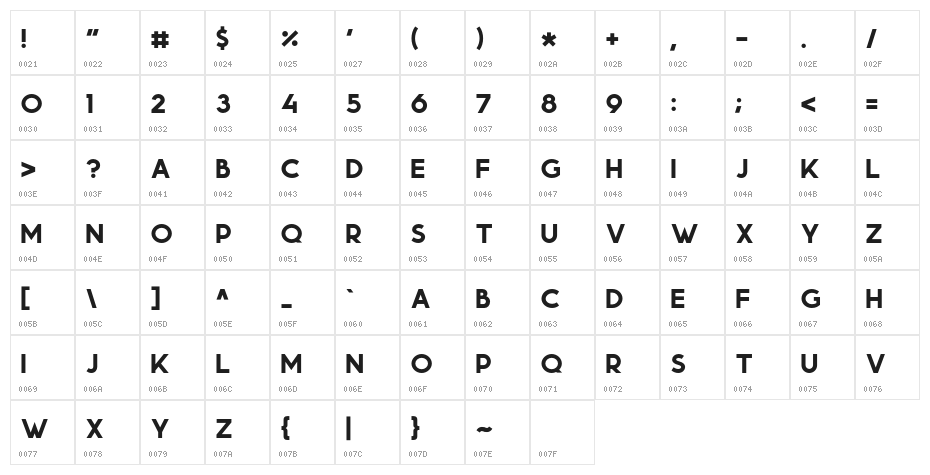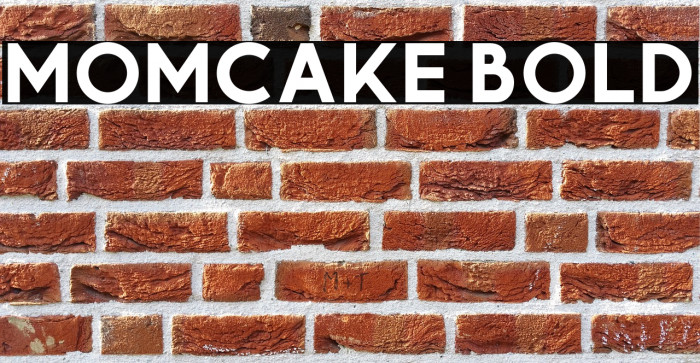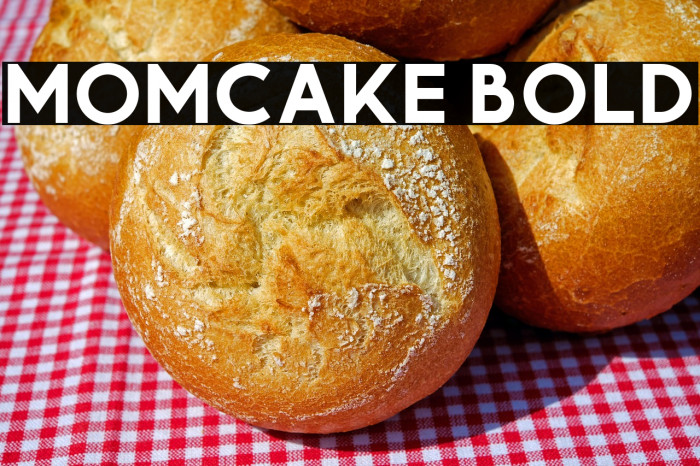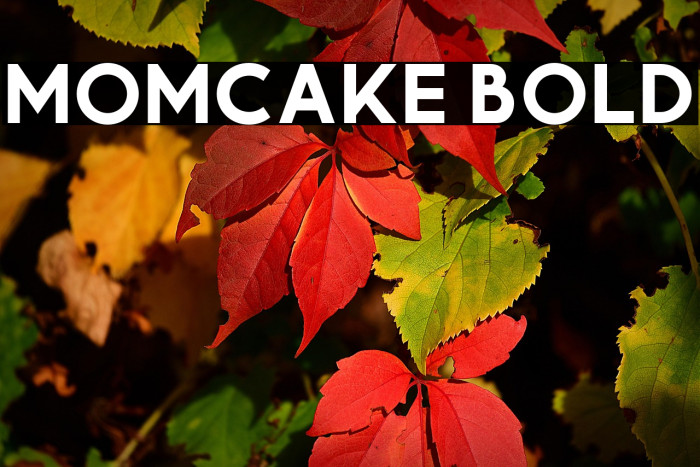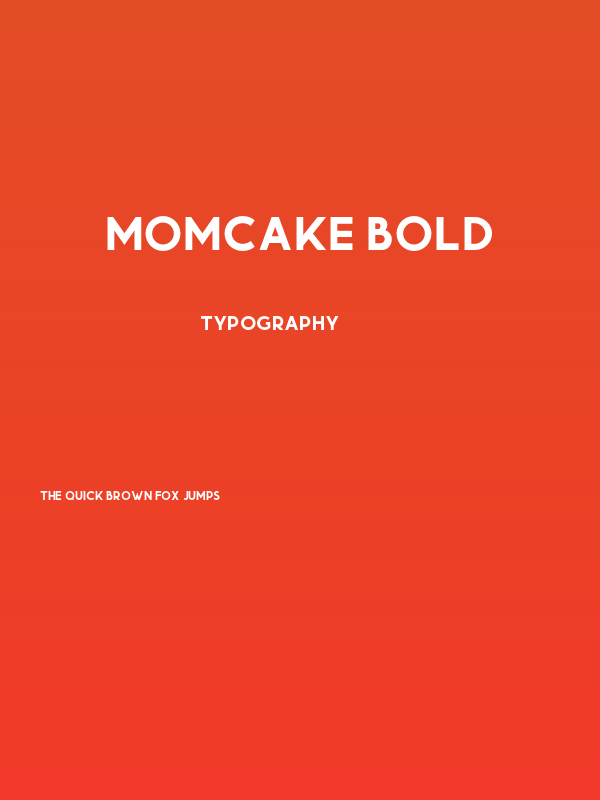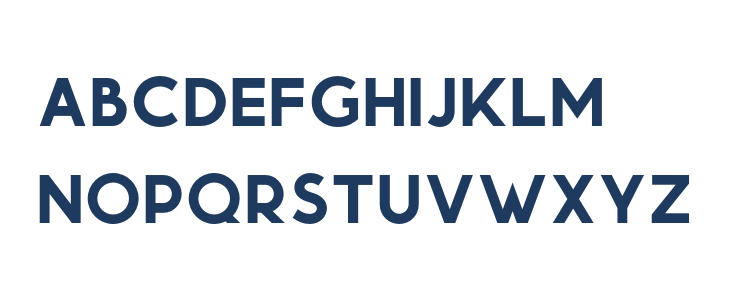
Momcake Bold Font
Momcake Bold Description
This font showcases a bold and modern design with clean lines and a geometric structure. The uppercase and lowercase letters are well-proportioned, offering a sense of balance and harmony. The numerals are distinct and easy to read, while the special characters maintain the font's cohesive style. The overall appearance is sleek and professional, making it suitable for a variety of design applications. Its bold weight and uniform stroke width contribute to its strong visual impact, making it ideal for headlines and attention-grabbing text.